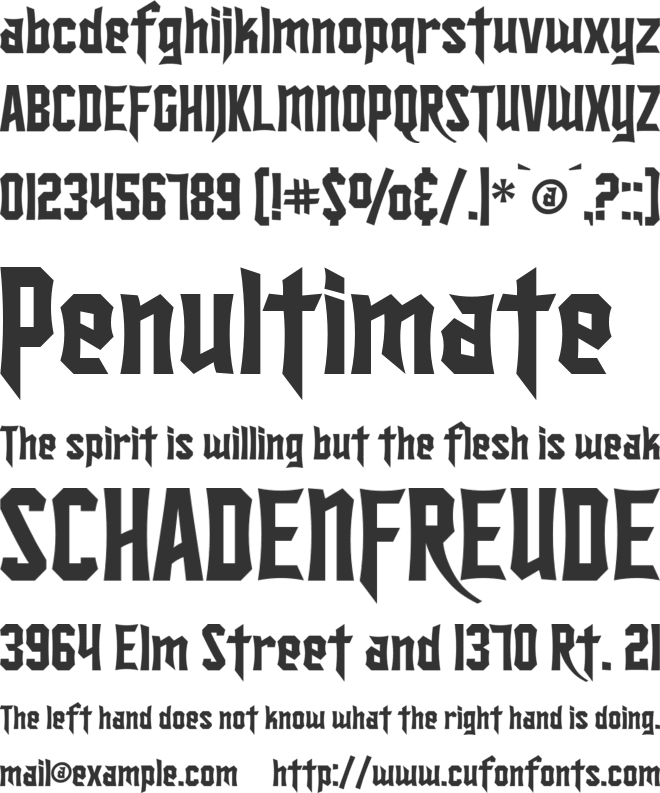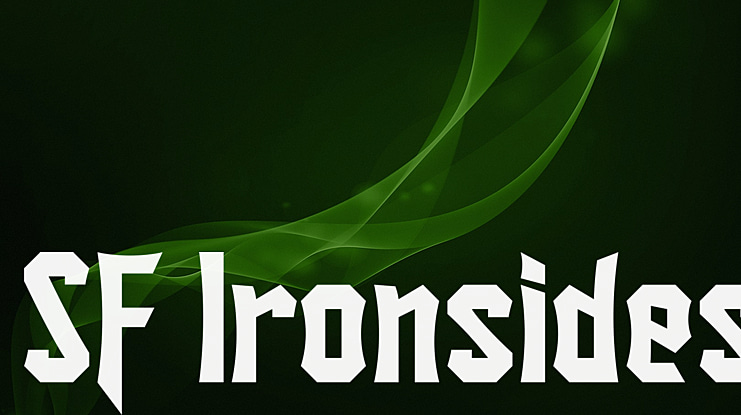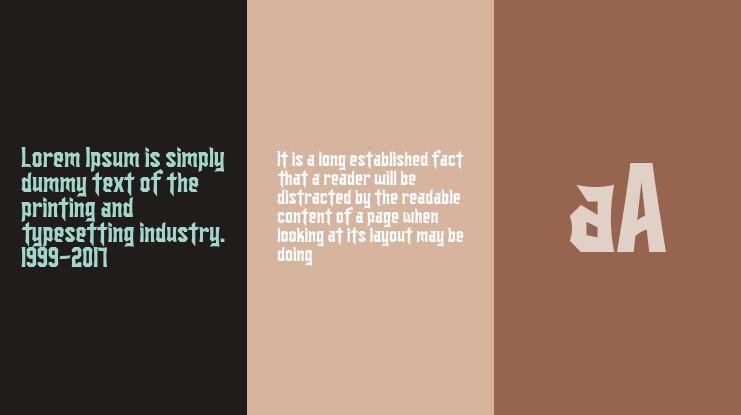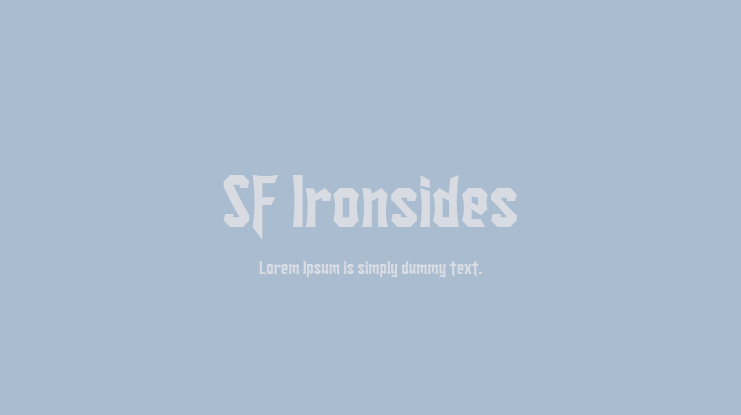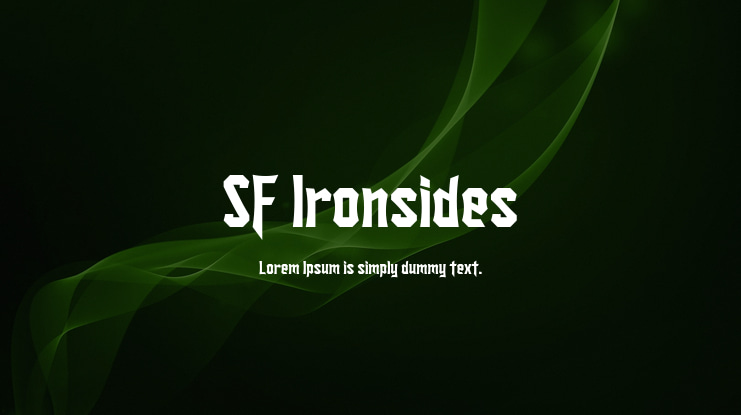
SF Ironsides Font Family
Derek Vogelpohl
An old and rugged display font family, SF Ironsides contains lowercase and uppercase letters, numbers, punctuation, and accented characters. This typeface includes eight styles.